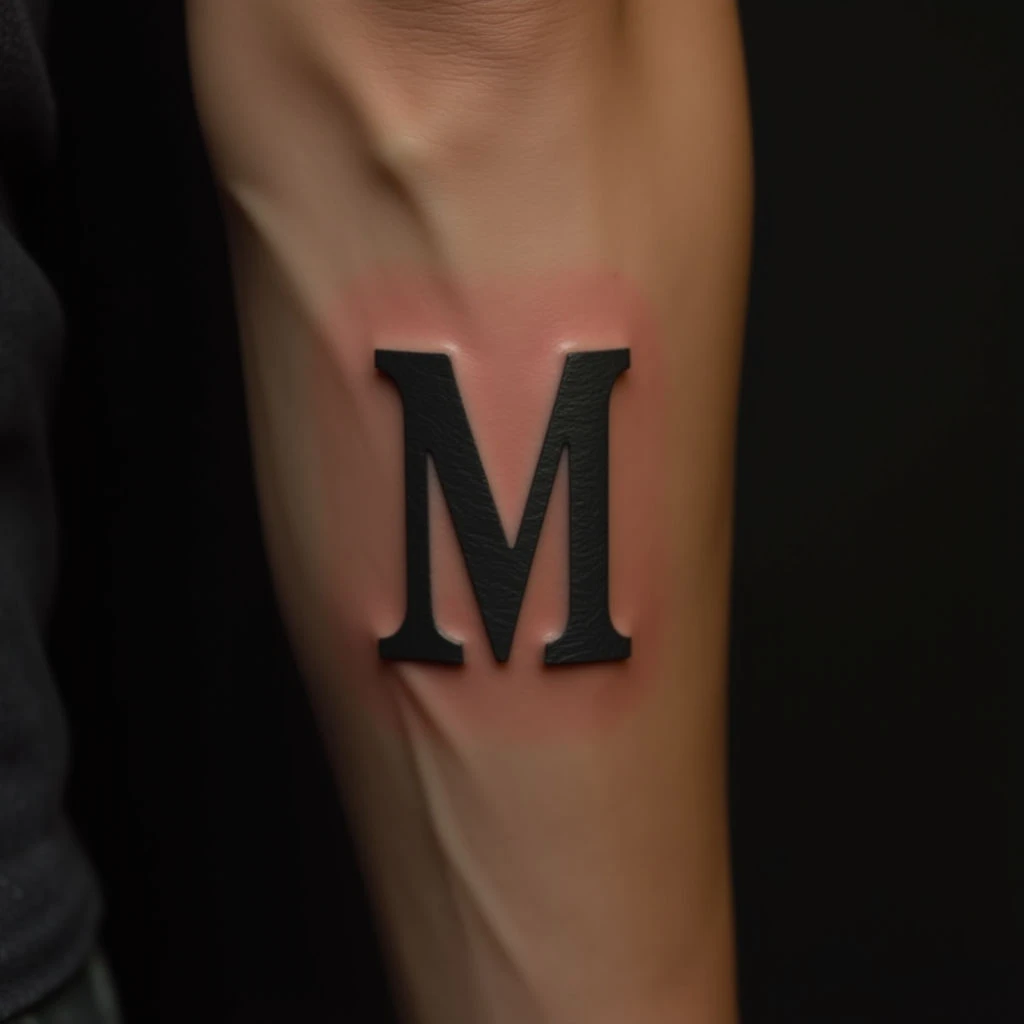
Discover inspiring illustrative foot tattoo designs featuring custom name fonts in brown and black. Explore unique typography styles, script options, and placement ideas for a personalized body art statement.
Bold Illustrative “M” Inner Bicep Tattoo
A striking capital "M" tattoo commands attention on the inner bicep. Rendered in solid black ink, the letter achieves a three-dimensional effect through subtle gradients and high detail—texture mimics a raised surface for realistic depth. Soft pink shading around the edges seamlessly blends with skin tone.
This illustrative style lends itself well to personalized body art, as seen in designs exploring custom name fonts in brown and black tones. While this example focuses on a single initial, similar techniques can create impactful typography pieces for foot placement or other areas, offering unique script options.
Illustrative Foot Tattoos with Name Fonts: Brown & Black Designs
Discover inspiring illustrative foot tattoo designs featuring custom name fonts in brown and black. Explore unique typography styles, script options, and placement ideas for a personalized body art statement.
Bold Illustrative “M” Inner Bicep Tattoo
A striking capital "M" tattoo commands attention on the inner bicep. Rendered in solid black ink, the letter achieves a three-dimensional effect through subtle gradients and high detail—texture mimics a raised surface for realistic depth. Soft pink shading around the edges seamlessly blends with skin tone.
This illustrative style lends itself well to personalized body art, as seen in designs exploring custom name fonts in brown and black tones. While this example focuses on a single initial, similar techniques can create impactful typography pieces for foot placement or other areas, offering unique script options.